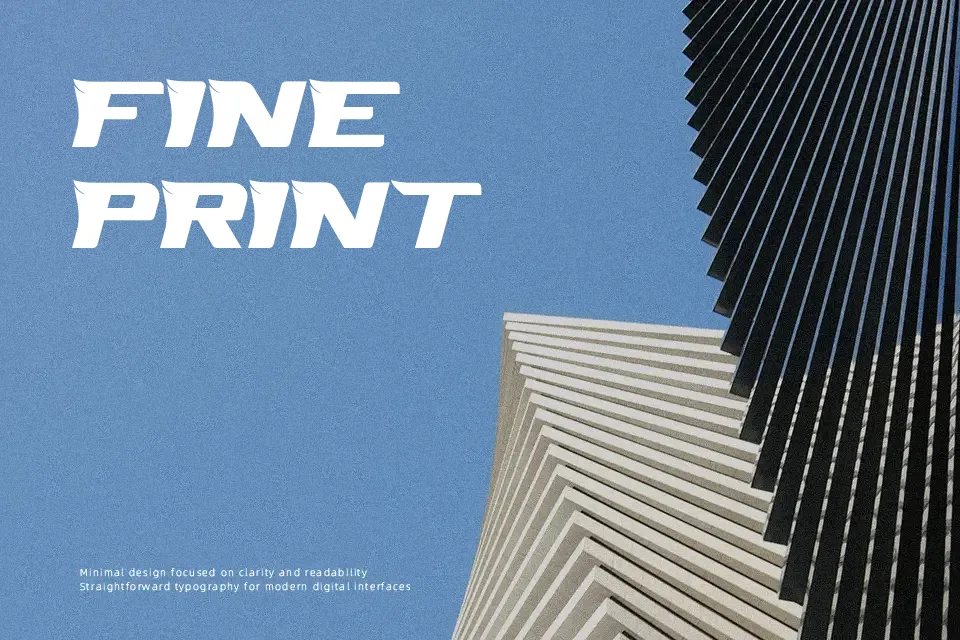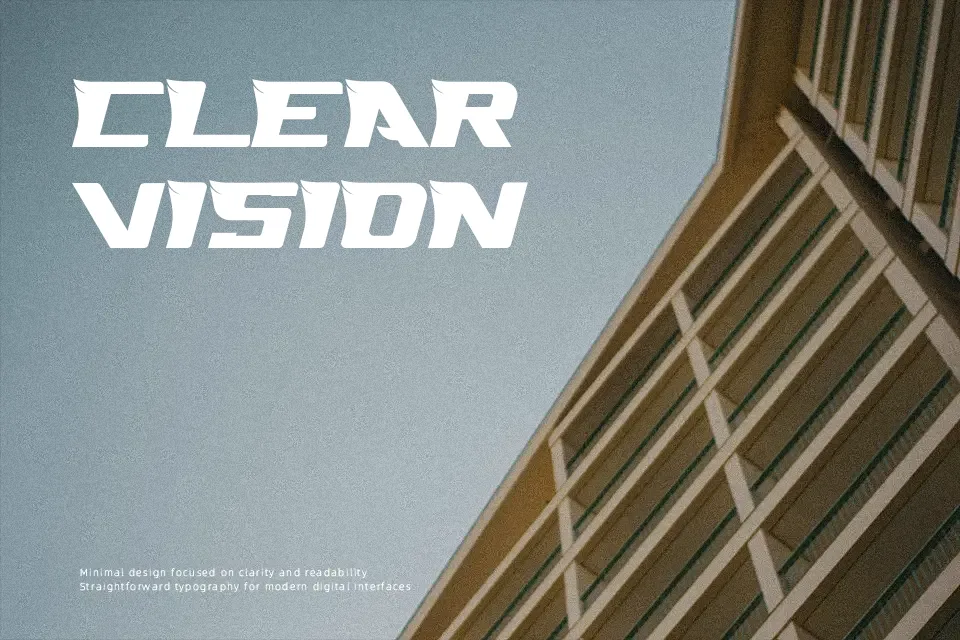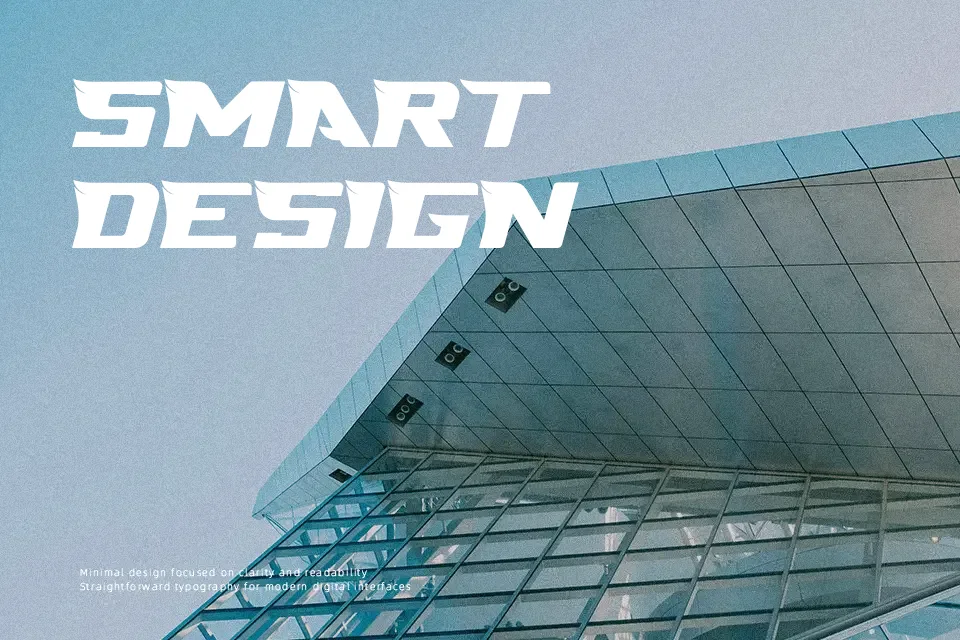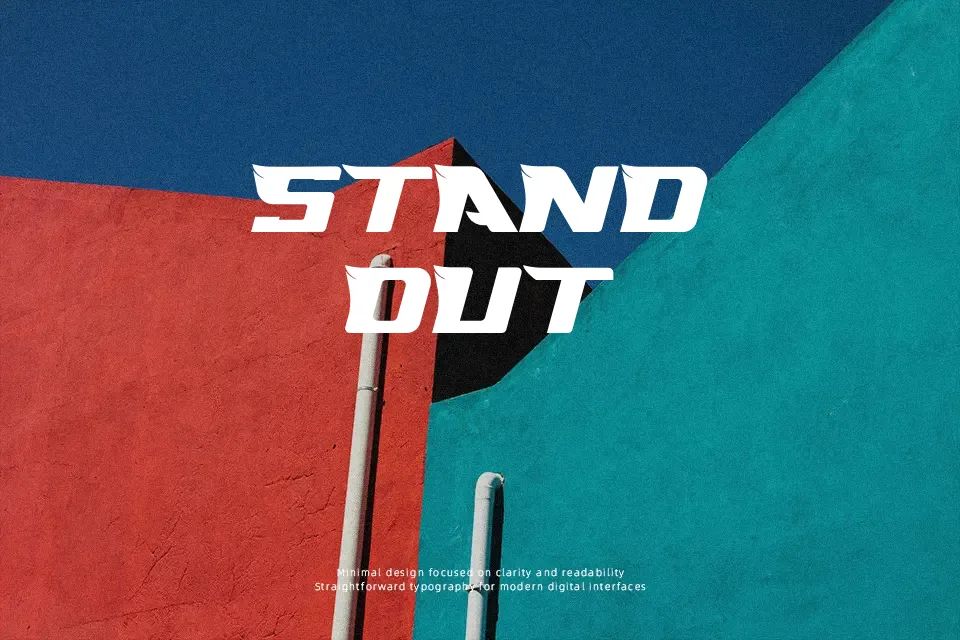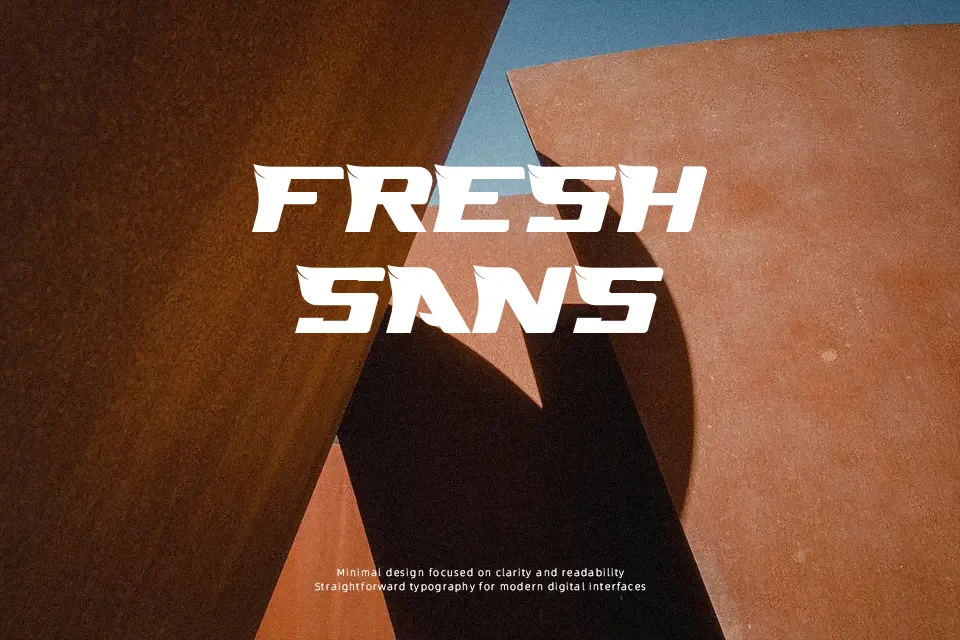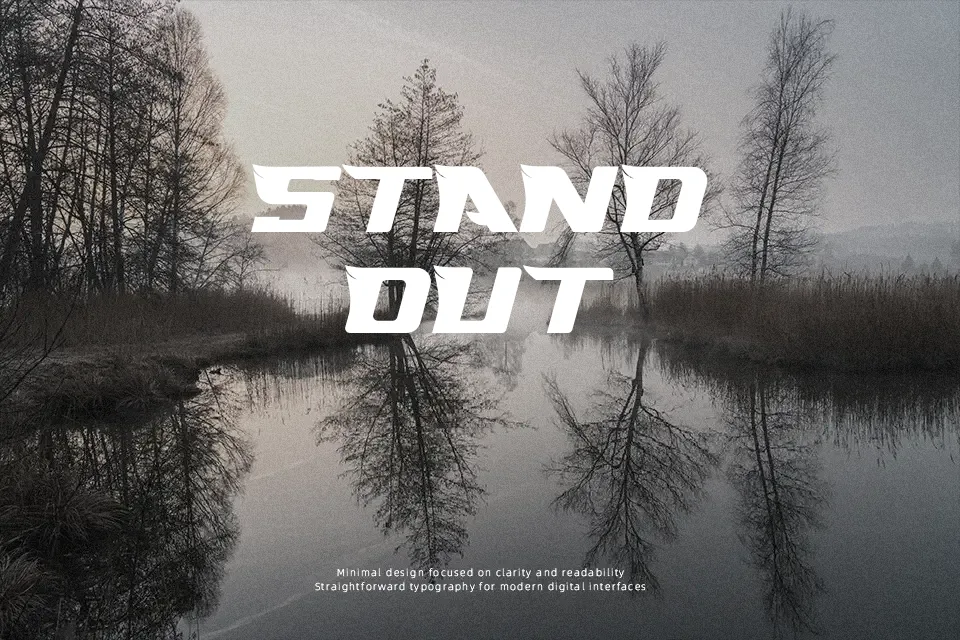
Prohero Font
A short product label or poster headline benefits immensely from the robust and confident structure of Prohero Font. The letterforms are built with heavy, consistent strokes and tight spacing, creating a solid block of text that demands attention. Its uppercase characters carry a strong geometric rhythm that feels both dynamic and stable, ensuring maximum visibility in large display sizes. While these assertive proportions are highly effective for esports logos and energetic branding, the dense forms reduce comfort during extended reading. Small captions or dense editorial layouts may lose clarity, as the bold weight tends to close up the counters at reduced scales.
esports team logos
apparel graphics
website hero headlines
Perfect for branding, gaming, and logo, with a bold and comic style.